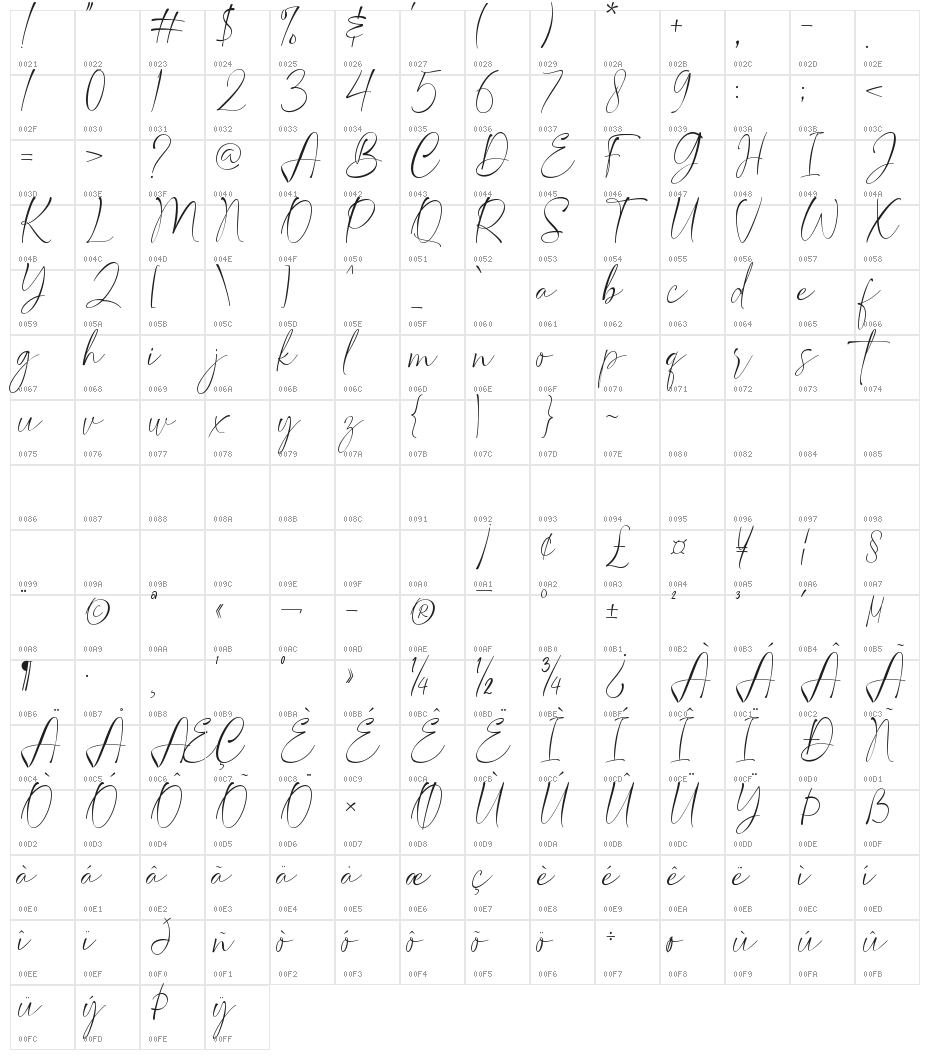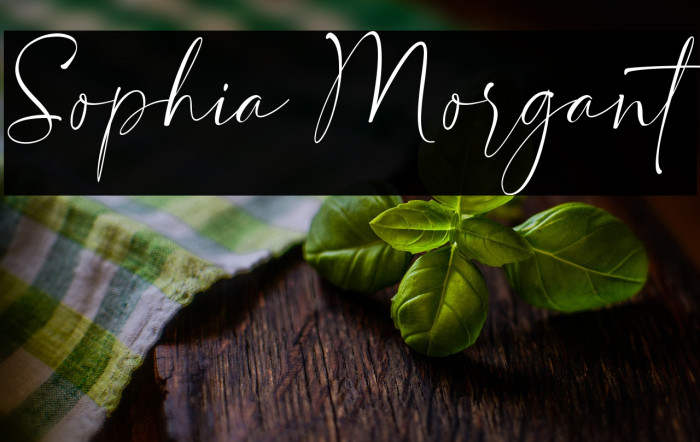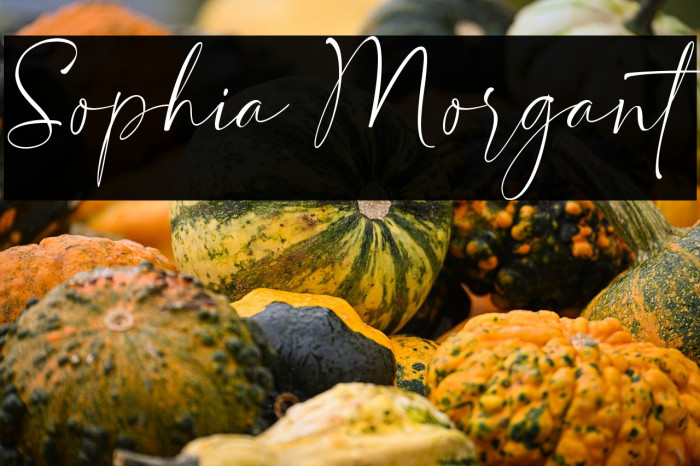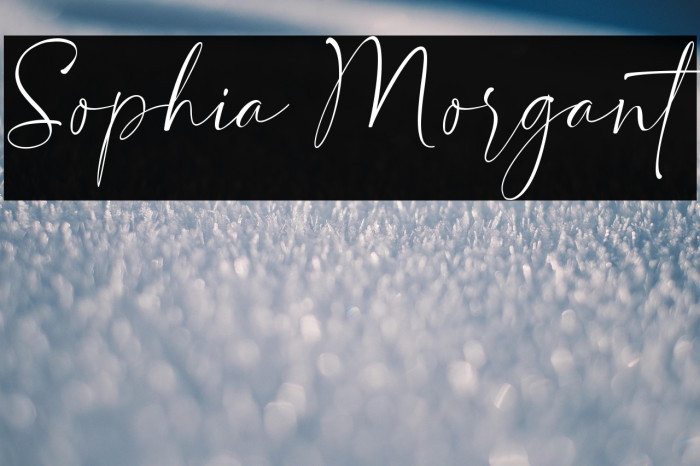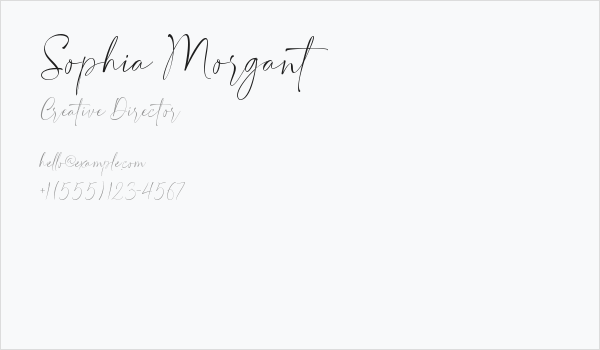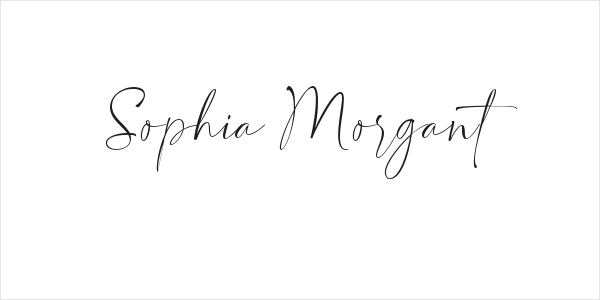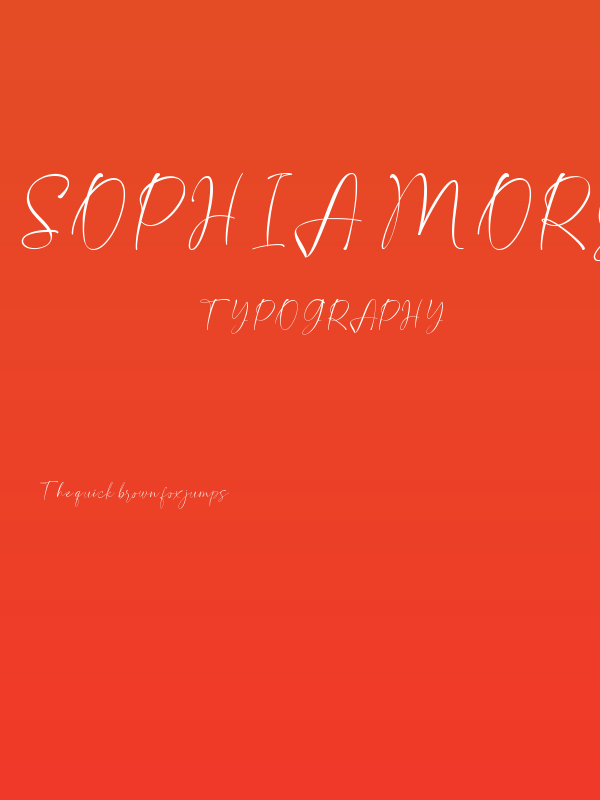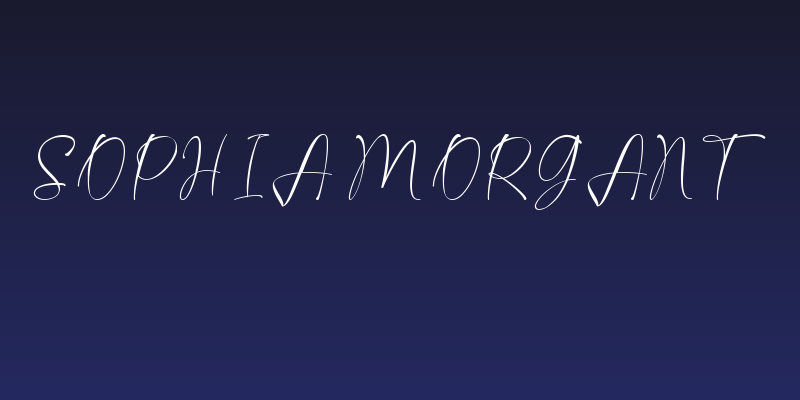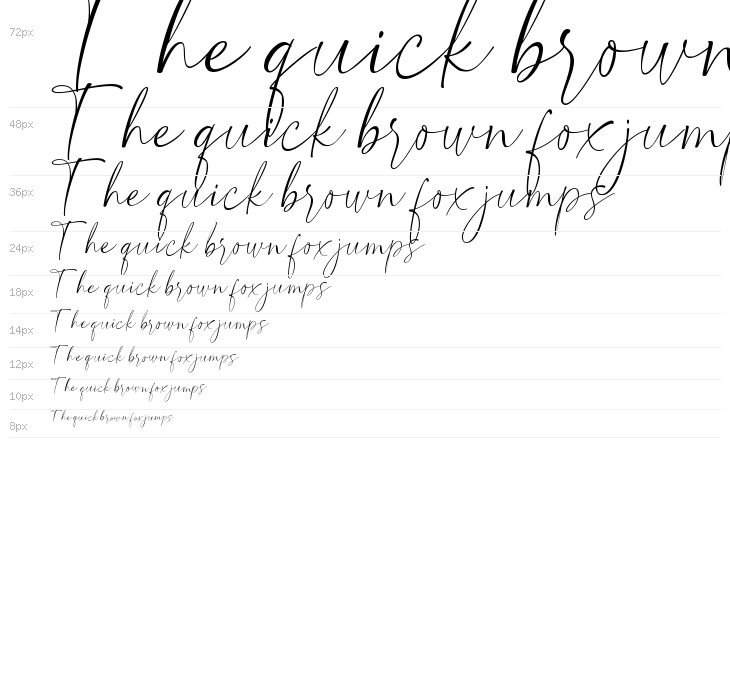
Sophia Morgant Font
Sophia Morgant Description
This elegant script font features a flowing, handwritten style with a modern twist. The characters are gracefully connected, creating a seamless and fluid appearance. The uppercase letters are slightly more elaborate, with sweeping curves and loops, while the lowercase letters maintain a consistent rhythm and balance. The numerals and special characters are designed to complement the overall aesthetic, with a similar attention to detail and style. The font's thin strokes and delicate lines give it a light and airy feel, making it perfect for projects that require a touch of sophistication and elegance.
| Use Case | Logos, Invitations, Headlines |
| Proposed Projects | Ideal for wedding invitations, elegant branding, personal stationery, and upscale packaging. |